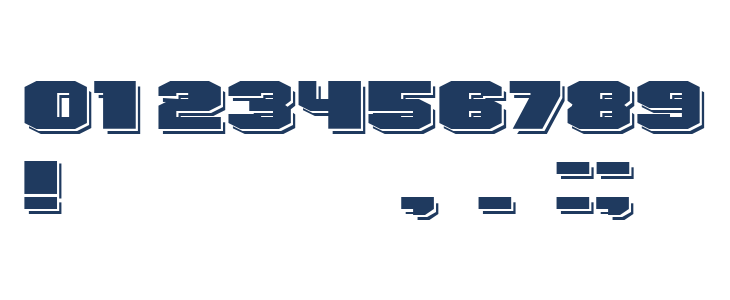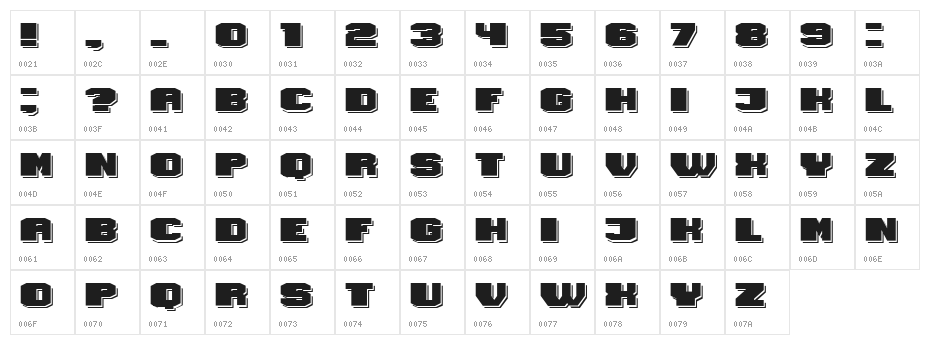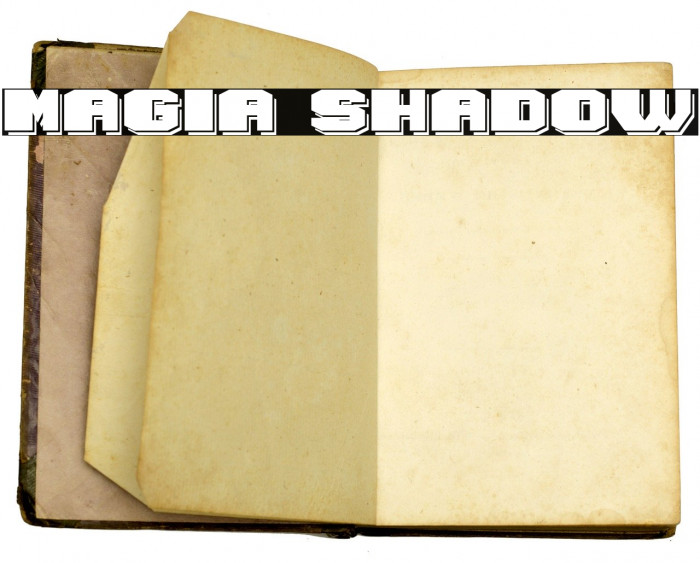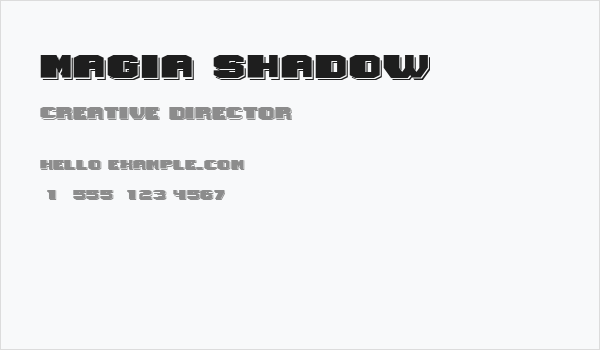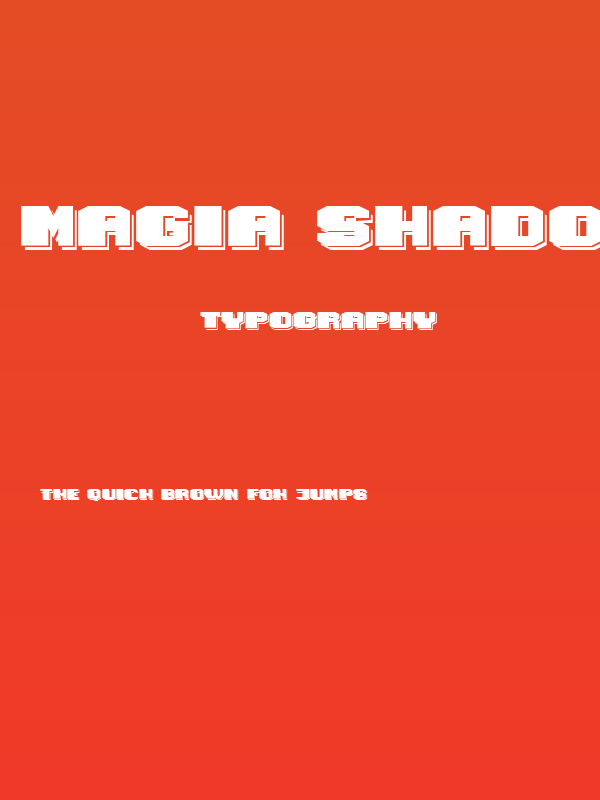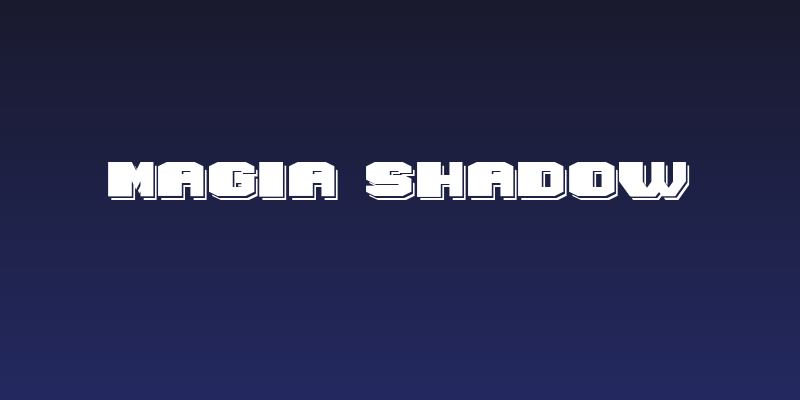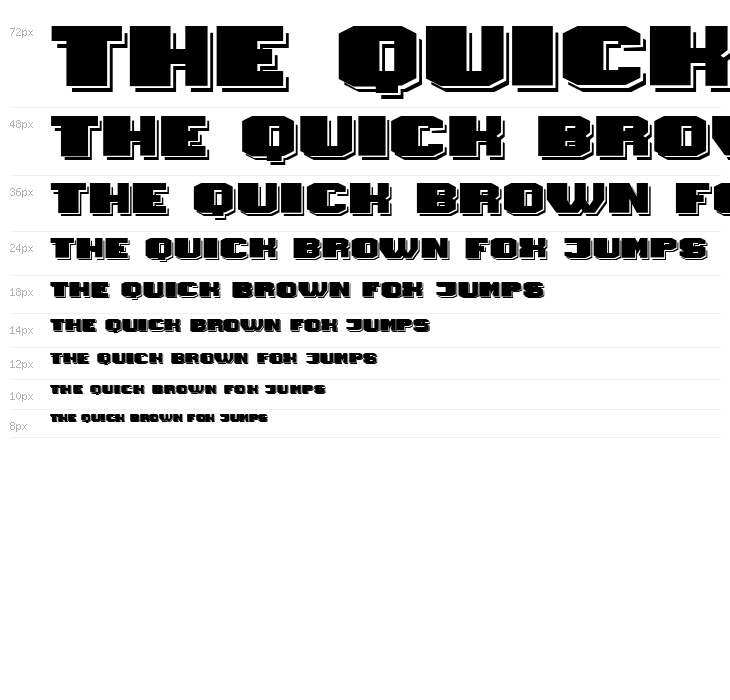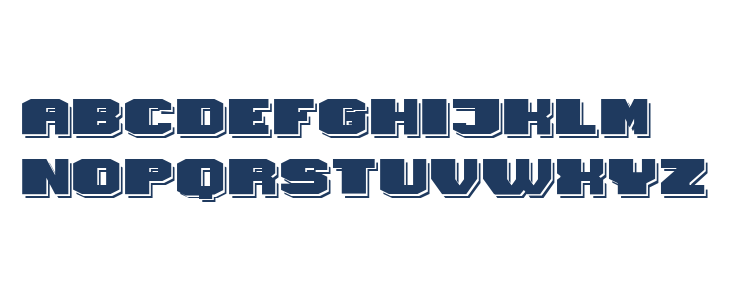
Magia Shadow Font
Magia Shadow Description
This font features a bold and striking design with a three-dimensional shadow effect that gives it a strong, impactful presence. The characters are blocky and geometric, with sharp edges and a consistent thickness throughout. The shadow adds depth and a sense of movement, making it ideal for attention-grabbing headlines or titles. The uppercase and lowercase letters maintain a uniform style, while the numbers and special characters complement the overall aesthetic. The font's boldness and shadow effect make it stand out, ensuring that any text using this font will be noticed.